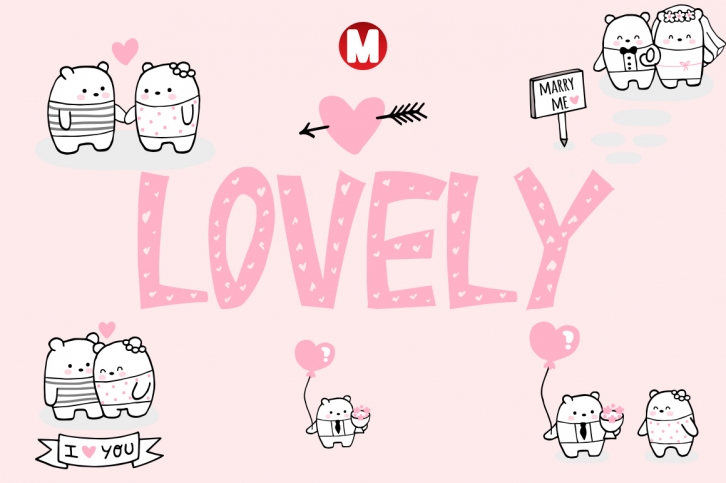
Lovely is a beautiful font that was designed by MagicHandStudio. It's a great choice for designers and creatives who need such a font. It was released on June 10, 2016 and the file size is 11.55 MB. Lovely may give a more youthful, expressive and casual look to your project. It is a very beautiful, refined, elegant, and high-quality font.